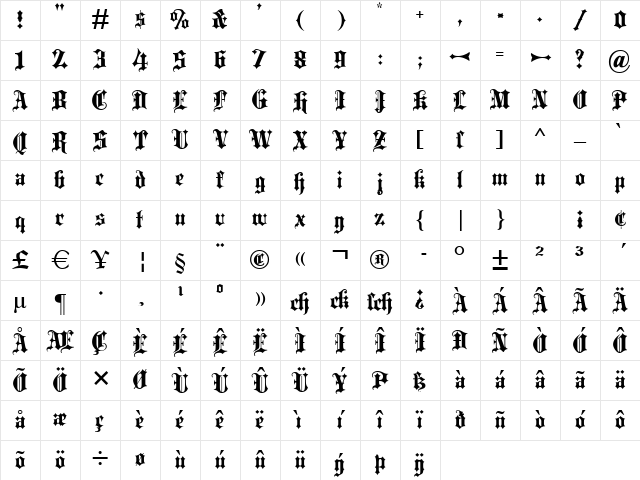
Blackletter ExtraBold
Design Context for Blackletter
Blackletter draws on the rich tradition of blackletter calligraphy, with dense, angular strokes that evoke medieval manuscripts and old-world craftsmanship. Its bold stroke weight gives it real presence on the page.
Font Pairing: Pair with a clean neutral sans-serif for body copy to let Blackletter's character lead without overwhelming the composition.
Pro Tip: Reserve Blackletter for display and logo use - pair it with a clean sans-serif for body copy to prevent the composition from feeling oppressive.